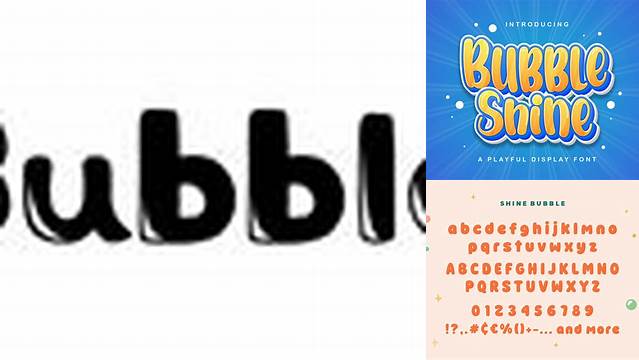
1. What is HU Bubble Shine Font?
The HU Bubble Shine Font is a typeface characterized by its rounded, bubbly appearance, often used to convey a sense of fun, playfulness, and modernity. This font is designed with smooth curves and a soft aesthetic, making it suitable for a wide range of creative projects, especially those targeting younger audiences or aiming for a light-hearted feel. Its distinctive style ensures that it stands out, adding a unique touch to any design. The font is versatile, and its charm can enhance various applications, from digital graphics to print materials, providing a visually appealing element that captures attention and evokes positive emotions.
When you're looking to incorporate a touch of whimsy or a friendly vibe into your work, the HU Bubble Shine Font is an excellent choice. Its design principles are rooted in approachability and visual comfort, ensuring that it doesn’t overwhelm the viewer but rather invites them in. Whether it's for a logo, a poster, or even website text, the font adapts well, maintaining readability while still making a statement. Free download options make it accessible for designers on a budget, and its unique characteristics mean it can add significant value to projects without costing a fortune. Ultimately, the HU Bubble Shine Font is more than just a typeface; it’s a tool for creating engaging and memorable visual experiences. The font's ability to blend seamlessly into various design contexts while retaining its unique identity makes it a favorite among designers aiming to strike a balance between creativity and functionality. It encapsulates the essence of playful design, making it a valuable addition to any designer's toolkit.
2. Key Features of HU Bubble Shine Font
The key features of HU Bubble Shine Font make it a standout choice for designers. Its most notable characteristic is its rounded, bubbly design, giving it a playful and approachable feel. This font often includes smooth curves and soft edges, enhancing its visual appeal and making it easy on the eyes. Versatility is another key feature; it can be used in various design contexts, from logos and branding to posters and digital graphics. It commonly supports a range of characters, including uppercase and lowercase letters, numbers, and punctuation, providing comprehensive typographic options. The font's legibility is also a crucial aspect, ensuring that it remains readable even in smaller sizes. Many versions come with multiple weights and styles, such as bold and italic, allowing for greater flexibility in design. The availability of free download options makes it accessible to a wide audience, from students to professional designers. Its unique style helps it stand out, adding a distinctive touch to any project. The overall design is intended to evoke a sense of fun and modernity, making it suitable for projects targeting younger audiences or those aiming for a light-hearted feel. Additionally, its design often incorporates elements that enhance visual balance and harmony, ensuring that the font integrates seamlessly into any layout. For example, the spacing between characters is carefully considered to improve readability and aesthetic appeal. Lastly, its unique character shapes and forms are designed to create a memorable and engaging visual impact, setting it apart from more conventional typefaces.
5. Using HU Bubble Shine Font in Graphic Design
Using the HU Bubble Shine Font in graphic design can add a playful and modern touch to your projects. This font is particularly effective for designs targeting younger audiences or those aiming for a light-hearted feel. Incorporate it into logos, posters, social media graphics, and website headers to create a memorable visual impact. The font's rounded, bubbly appearance makes it ideal for branding that seeks to convey friendliness and approachability. Experiment with different font sizes and weights to find the perfect balance for your design. Pair it with complementary fonts that offer contrast while maintaining readability. Consider using the font in headings and titles to draw attention to key information. In digital graphics, use CSS to apply the font to your website, ensuring it loads properly across different browsers. When using it in print materials, make sure the font is embedded in the document to avoid substitution issues. Pay attention to the kerning and leading to optimize readability. Use the font strategically to enhance the overall aesthetic of your design without overwhelming the viewer. For instance, you might use it sparingly for emphasis, rather than for large blocks of text. Incorporate the font's unique characteristics into your design concept to create a cohesive and visually appealing final product. By carefully considering how you use the HU Bubble Shine Font, you can effectively leverage its playful charm to enhance your graphic design projects.
6. HU Bubble Shine Font Alternatives
If the HU Bubble Shine Font isn't quite what you're looking for, several alternatives offer similar aesthetics. One popular option is Bubblegum Sans, which shares the same playful, rounded design. Another alternative is Luckiest Guy, a bold, hand-drawn font with a cheerful vibe. For a more geometric approach, consider Montserrat, which features clean, rounded letterforms. If you need a font with a bit more flair, try Amatic SC, a hand-drawn font that works well for headlines and titles. Another option is Baloo Bhai, a playful font with rounded terminals and a friendly feel. If you prefer a script-style font, consider Pacifico, which offers a smooth, flowing design. For a more modern and minimalist look, try Quicksand, which features rounded edges and a clean appearance. Each of these alternatives provides a unique take on the bubbly, playful aesthetic, allowing you to find the perfect fit for your project. When choosing an alternative, consider the overall tone and message of your design. Experiment with different fonts to see which one best complements your visual concept. Also, be sure to check the licensing terms to ensure you can use the font in your desired application. By exploring these alternatives, you can discover fonts that capture the essence of the HU Bubble Shine Font while adding your own unique touch.